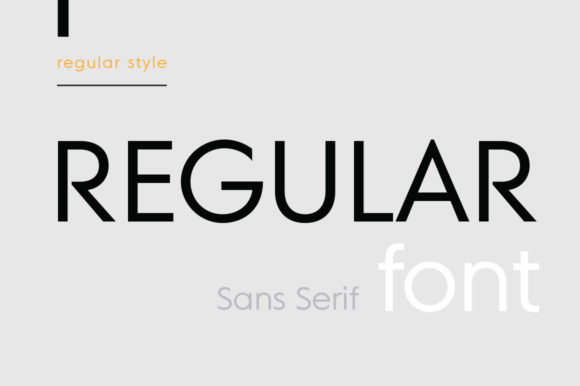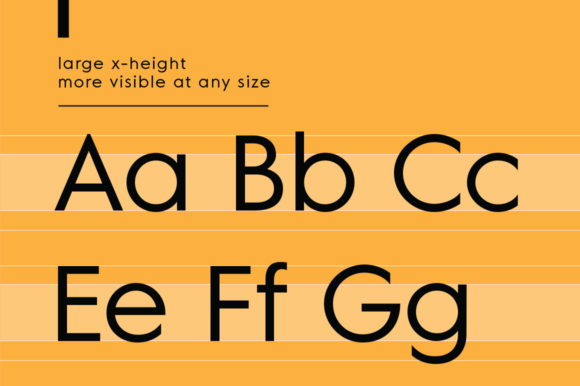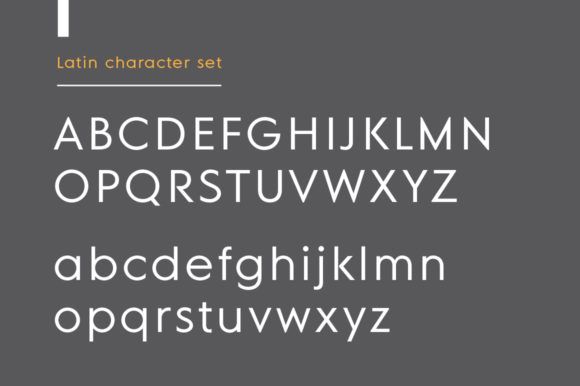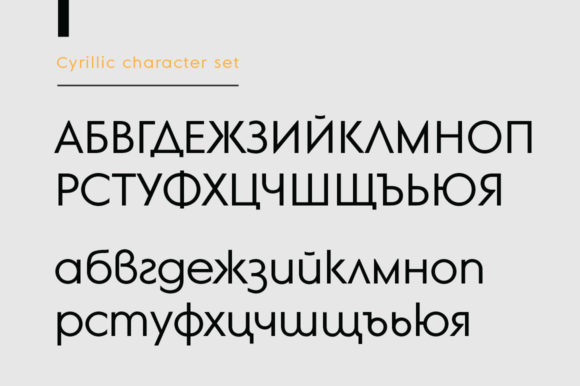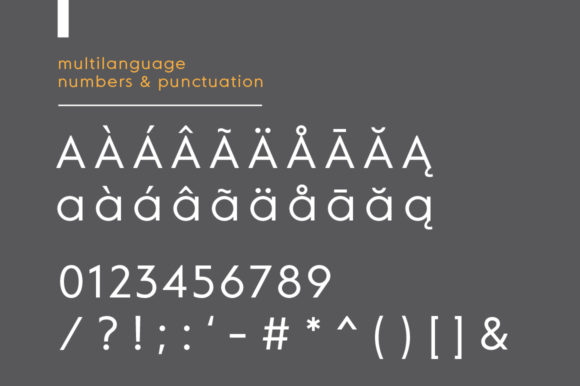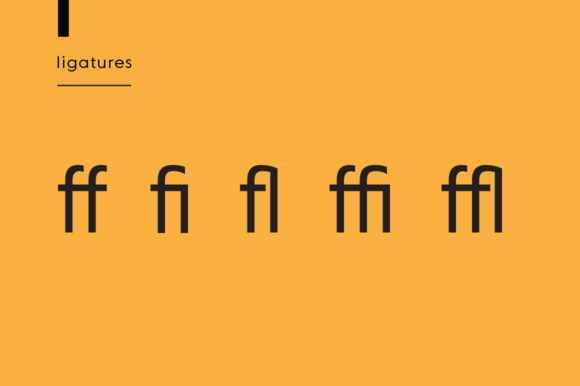
Introduction to MD Grotesque Regular Font
MD Grotesque Regular is a sans serif font with a minimalist feel.
Perfect for any simple text .
Key Features of MD Grotesque Regular Font
Why Choose MD Grotesque Regular Font?